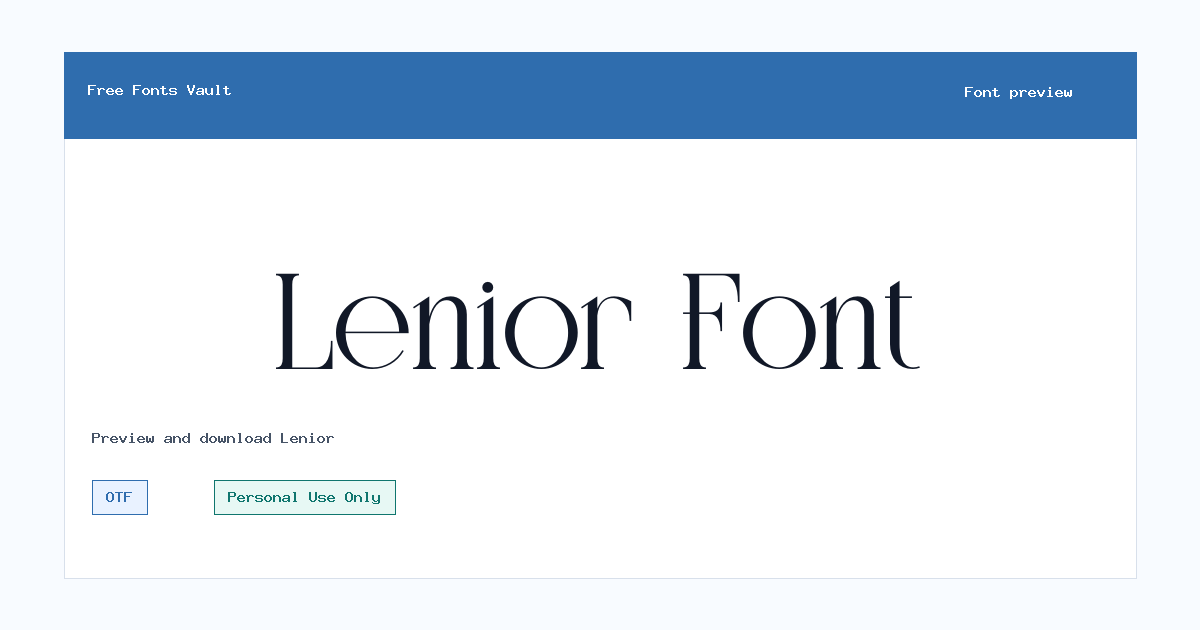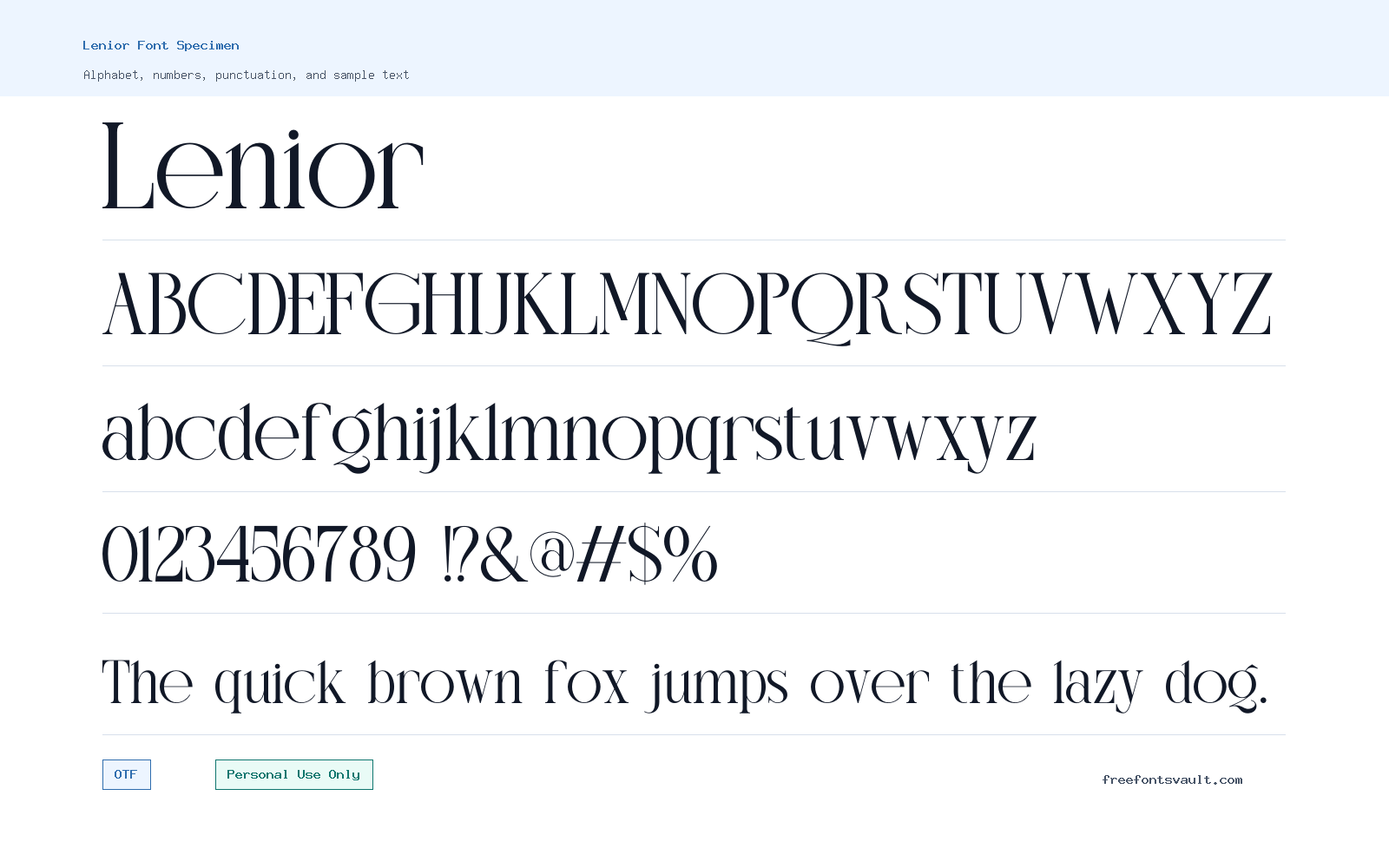
Lenior
- Designer ErmediaStudio
Lenior is a serif font from ErmediaStudio with a regular OTF style for personal projects. It is a good font to test when you need a polished text style for titles, invitations, social graphics, or other non-commercial designs.
About Lenior Font
Lenior works best as a display-minded serif rather than a plain body-text workhorse. Use the preview box to check its letter shapes at the exact size you plan to use, especially if your design depends on short words, names, dates, or headline text. Since the downloadable style is the regular weight, it is most useful when you want one consistent voice across a small layout instead of a full family with bold, italic, or multiple weights.
For design work, start by trying Lenior in short lines: a logo draft for a personal project, a quote card, a wedding sample, a book-style heading, or a decorative website title mockup. If you use it with longer text, test spacing and line height carefully before committing. Serif display fonts can look elegant in large sizes but may lose clarity when used too small or packed into dense paragraphs. Pair it with a simple sans serif for supporting text so Lenior can stay focused on names, headings, and standout details.
- Serif styling suited to short display text, headings, and personal design drafts
- Personal invitations, quote graphics, name designs, and title treatments
- Non-commercial branding concepts, poster drafts, and elegant headline mockups
Lenior is credited to ErmediaStudio. No foundry name or designer website was included with the font details.
What style of font is Lenior?
Lenior is identified as a serif font. It is best tested in headings, names, short phrases, and other display uses before using it in longer text.
Who designed Lenior?
The font details credit ErmediaStudio as the designer.
How should I use Lenior in a design?
Use it where the font can be seen clearly, such as titles, invitations, quote graphics, and personal poster concepts. Keep supporting text simple and check readability at the final size.